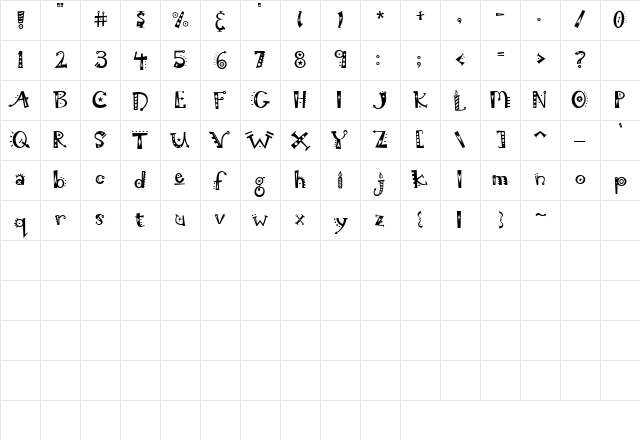
Scrap Birthday Regular Free Font
Scrap Birthday Regular
Scrap Birthday Family
Scrap Birthday Regular
Design Context for Scrap Birthday
Scrap Birthday is a composed and adaptable typeface that performs quietly and consistently across a wide range of design contexts.